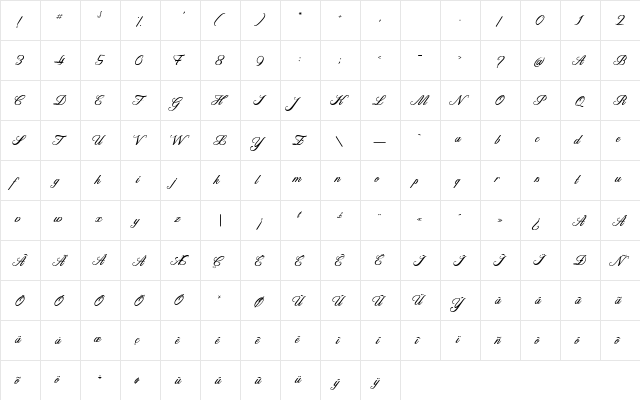
Catherine de Beaumont Regular
Design Context for Catherine de Beaumont Typeface
Catherine de Beaumont is a composed and adaptable typeface that performs quietly and consistently across a wide range of design contexts.
Pro Tip: Use Catherine de Beaumont in both headline and body roles to test its range before committing to a single application.